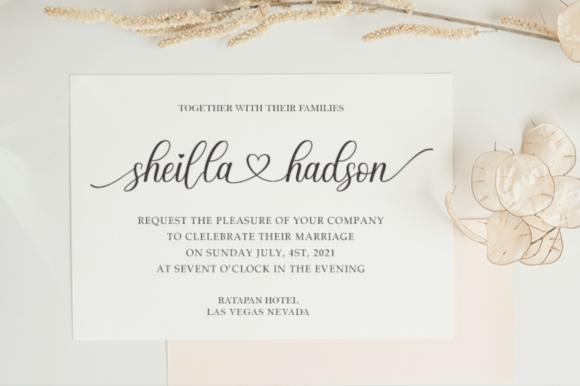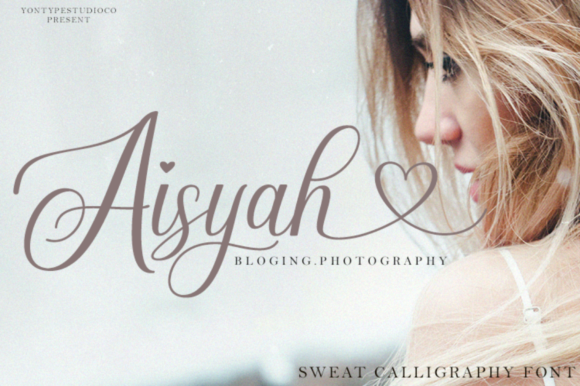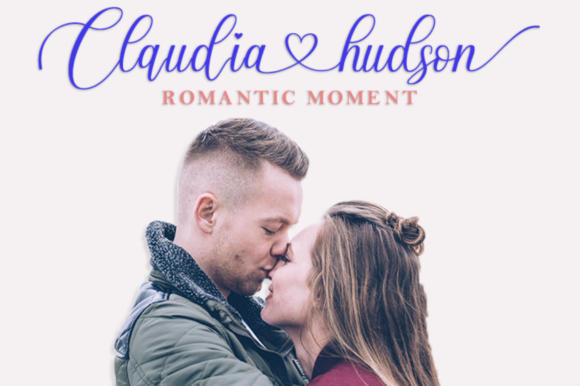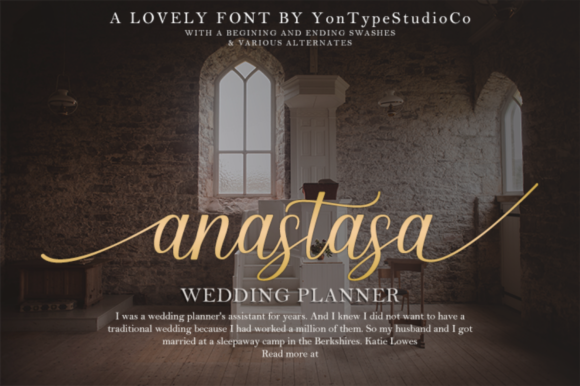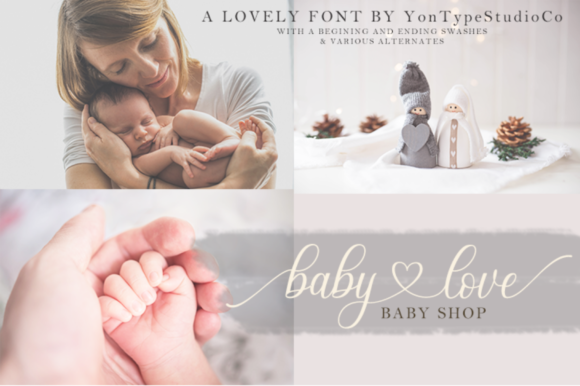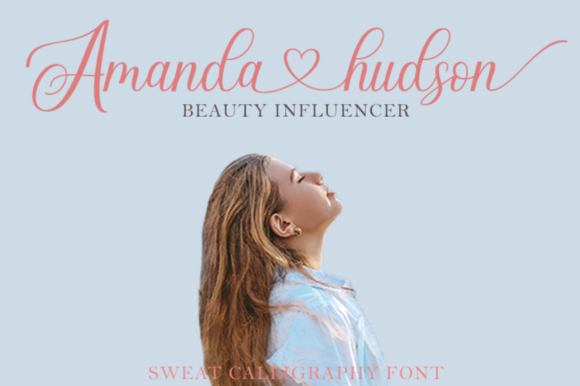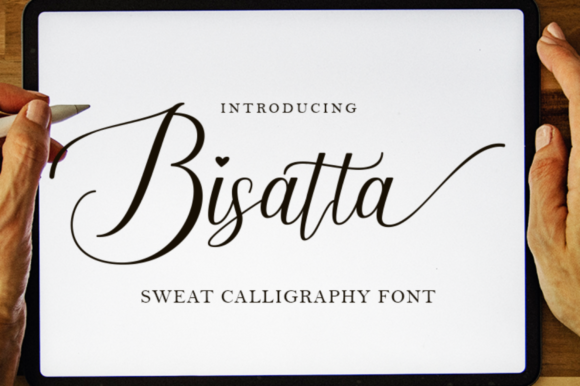
Bisatta Calligraphy Font: Elevate Your Designs with Elegance and Class
In the world of typography, calligraphy fonts have always been a popular choice for designers and crafters looking to add a touch of sophistication and elegance to their work. One such font that has been making waves in the design community is the Bisatta Calligraphy Font. This lovely and delicate script font is specifically crafted for those who need a beautiful and refreshing look to their designs. In this article, we’ll take a closer look at the Bisatta Calligraphy Font, its features, and how it can elevate your designs.
What is Bisatta Calligraphy Font?
Bisatta Calligraphy is a stunning script font that exudes elegance and class. Its delicate strokes and beautiful ligatures make it perfect for a variety of design projects, from wedding invitations and stationery to branding and advertising materials. This font is designed to add a touch of sophistication and refinement to your work, making it ideal for designers and crafters who want to create something truly special.
Key Features of Bisatta Calligraphy Font
So, what makes Bisatta Calligraphy Font so special? Here are some of its key features:
- PUA Encoded: Bisatta Calligraphy is PUA (Private Use Area) encoded, which means you can access all of the amazing glyphs and ligatures with ease. This makes it simple to use and incorporate into your designs.
- Delicate Strokes: The font features delicate strokes that give it a light and airy feel. This makes it perfect for designs that require a touch of elegance and sophistication.
- Beautiful Ligatures: Bisatta Calligraphy has beautiful ligatures that add a touch of refinement to your designs. These ligatures can be used to create stunning text effects that will make your work stand out.
- Easy to Use: The font is easy to use and can be incorporated into a variety of design projects, from print materials to digital designs.
Design Ideas Using Bisatta Calligraphy Font
Bisatta Calligraphy Font is versatile and can be used in a variety of design projects. Here are some design ideas to get you started:
- Wedding Invitations: Use Bisatta Calligraphy Font to create stunning wedding invitations that set the tone for a beautiful and elegant wedding.
- Branding and Advertising: Use the font to create elegant and sophisticated branding and advertising materials, such as logos, brochures, and business cards.
- Stationery: Use Bisatta Calligraphy Font to create beautiful stationery, such as letterheads, notecards, and journals.
- Digital Designs: Use the font to create stunning digital designs, such as social media graphics, blog headers, and website titles.
In conclusion, Bisatta Calligraphy Font is a beautiful and elegant script font that can elevate your designs to the next level. Its delicate strokes, beautiful ligatures, and PUA encoding make it easy to use and incorporate into your work. Whether you’re a designer or crafter, Bisatta Calligraphy Font is a great addition to your font library. So why not give it a try and see how it can transform your designs?